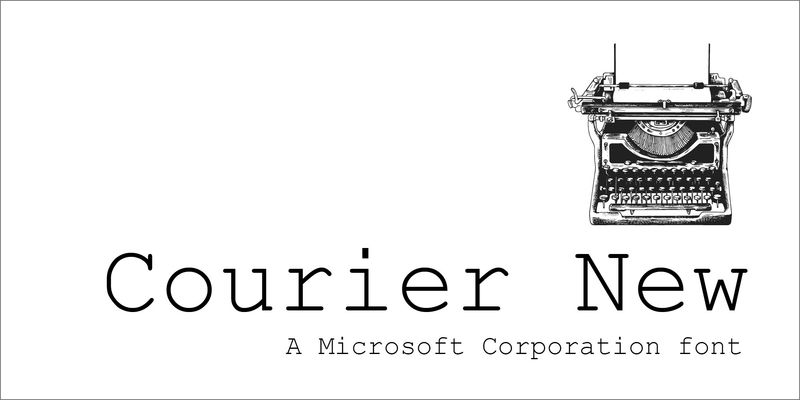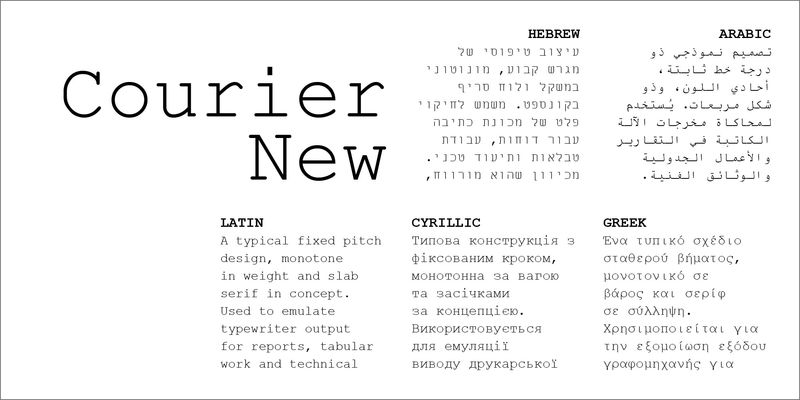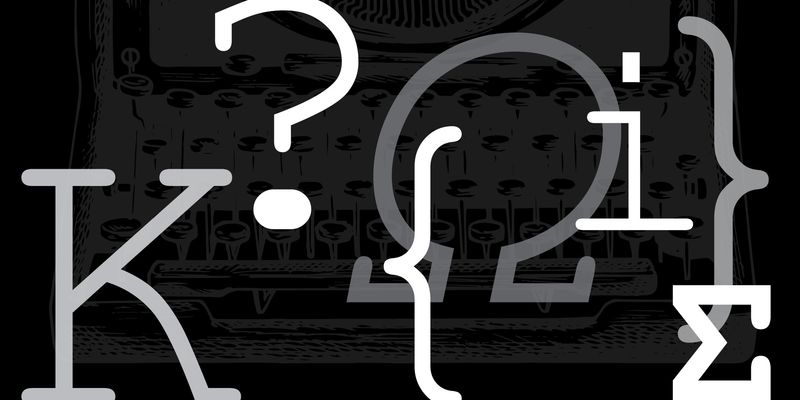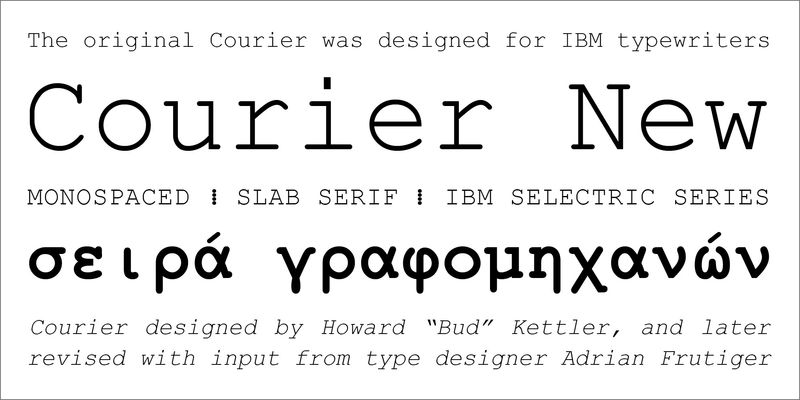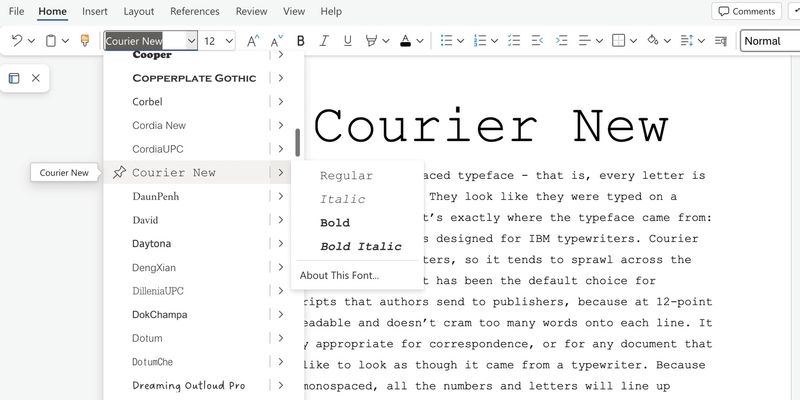
Courier New is a monospaced typeface – that is, every letter is exactly the same width. They look like they were typed on a typewriter, because that’s exactly where the typeface came from: the original Courier was designed for IBM typewriters. Courier New has fairly wide letters, so it tends to sprawl across the page. For many years, it has been the default choice for manuscripts that authors send to publishers, because at 12-point it’s readable and doesn’t cram too many words onto each line. It is very appropriate for correspondence, or for any document that you’d like to look as though it came from a typewriter. Because it is monospaced, all the numbers and letters will line up vertically.
The original Courier was designed by Howard “Bud” Kettler in 1955 or 1956 for IBM typewriters and later revised with input from type designer Adrian Frutiger for IBM’s Selectric typewriter series, where it became the most common office typeface. It was adapted as a computer typeface to become one of the core Windows typefaces.